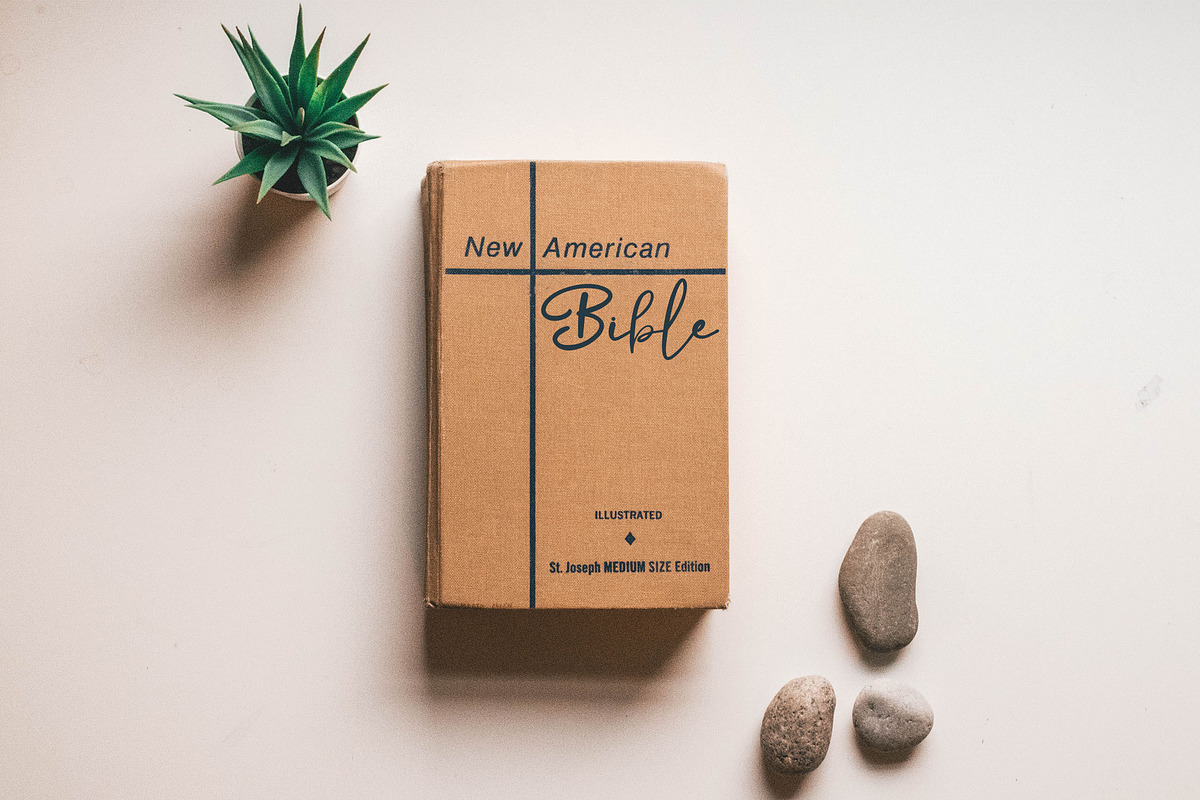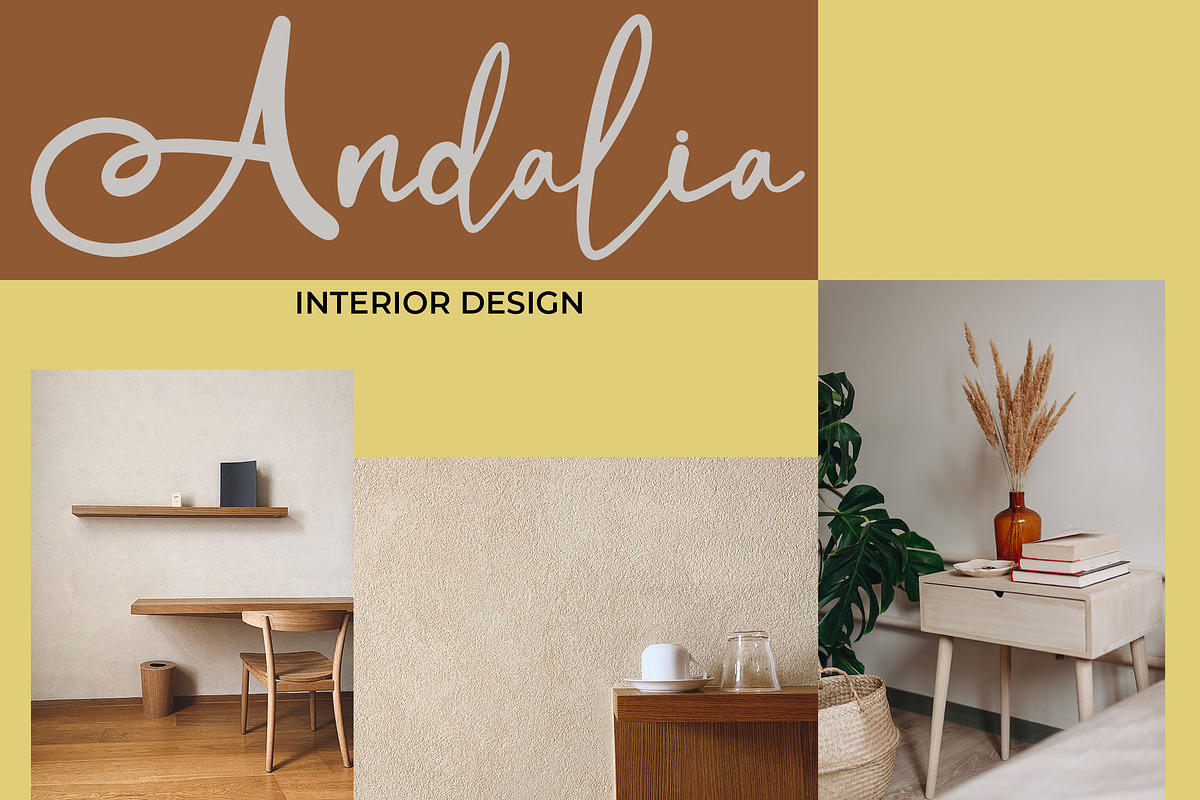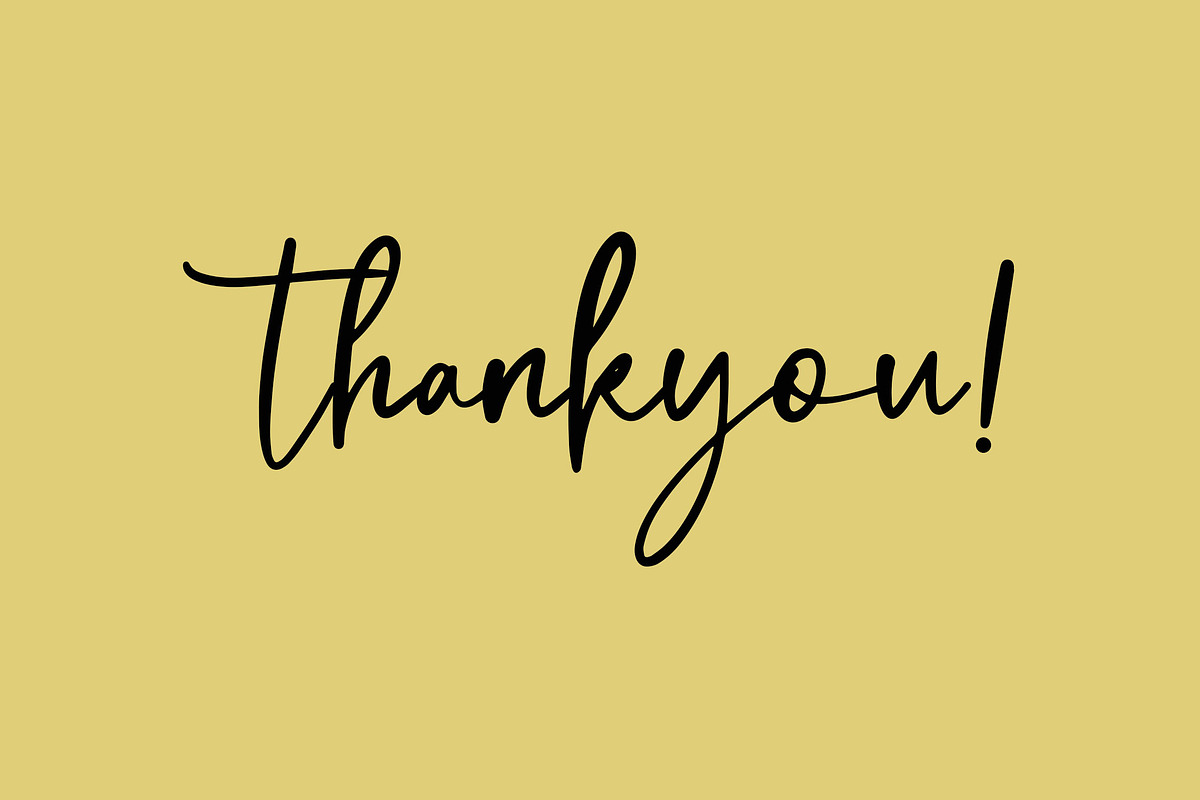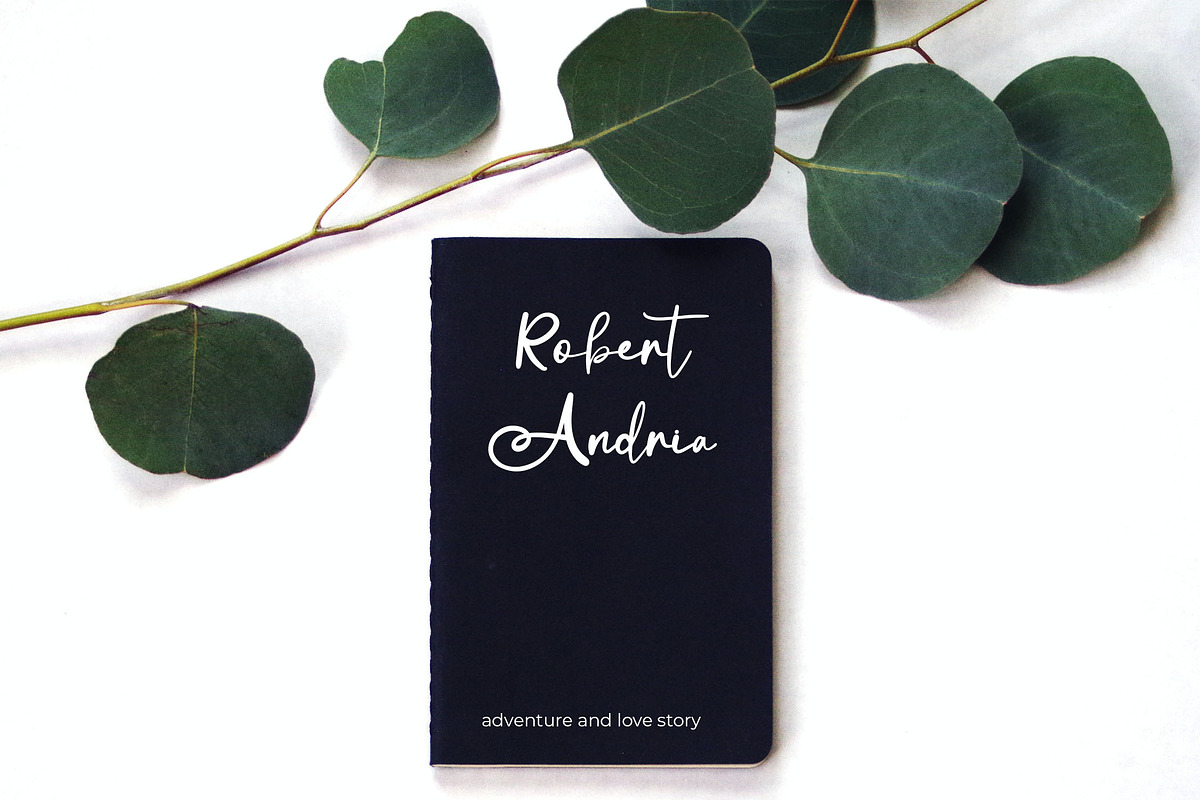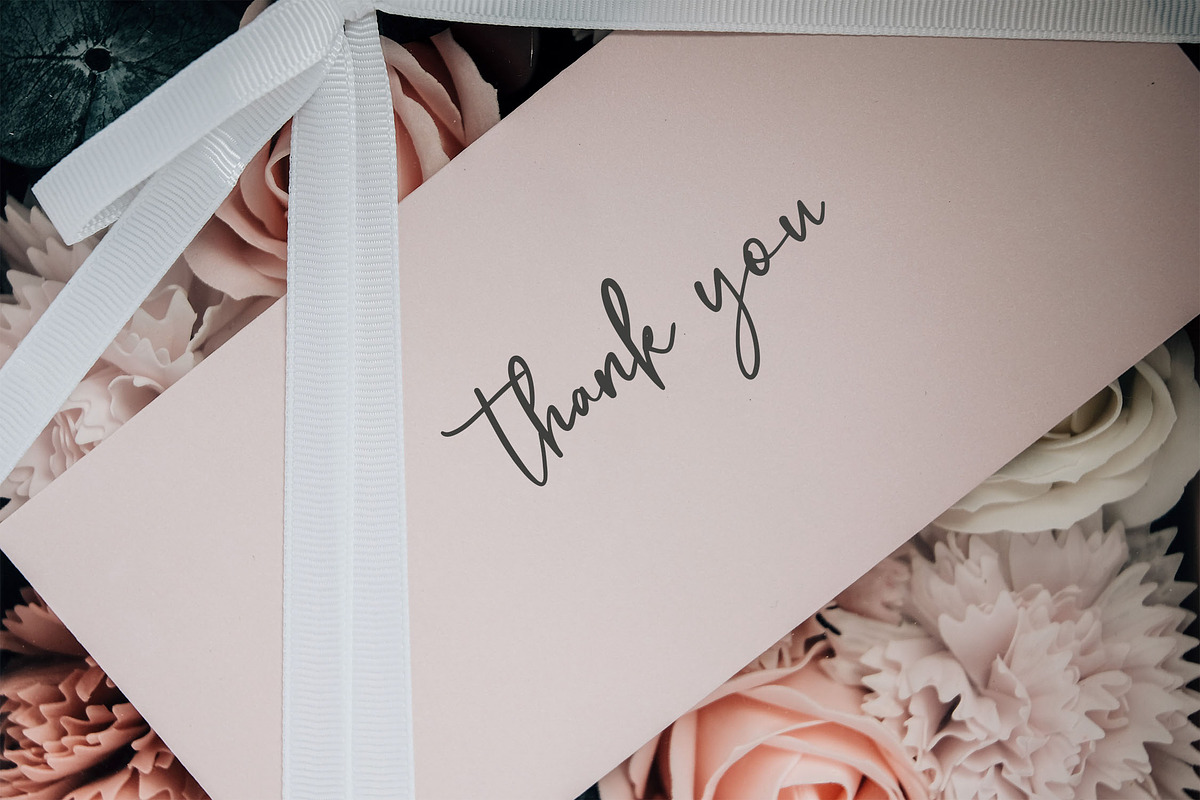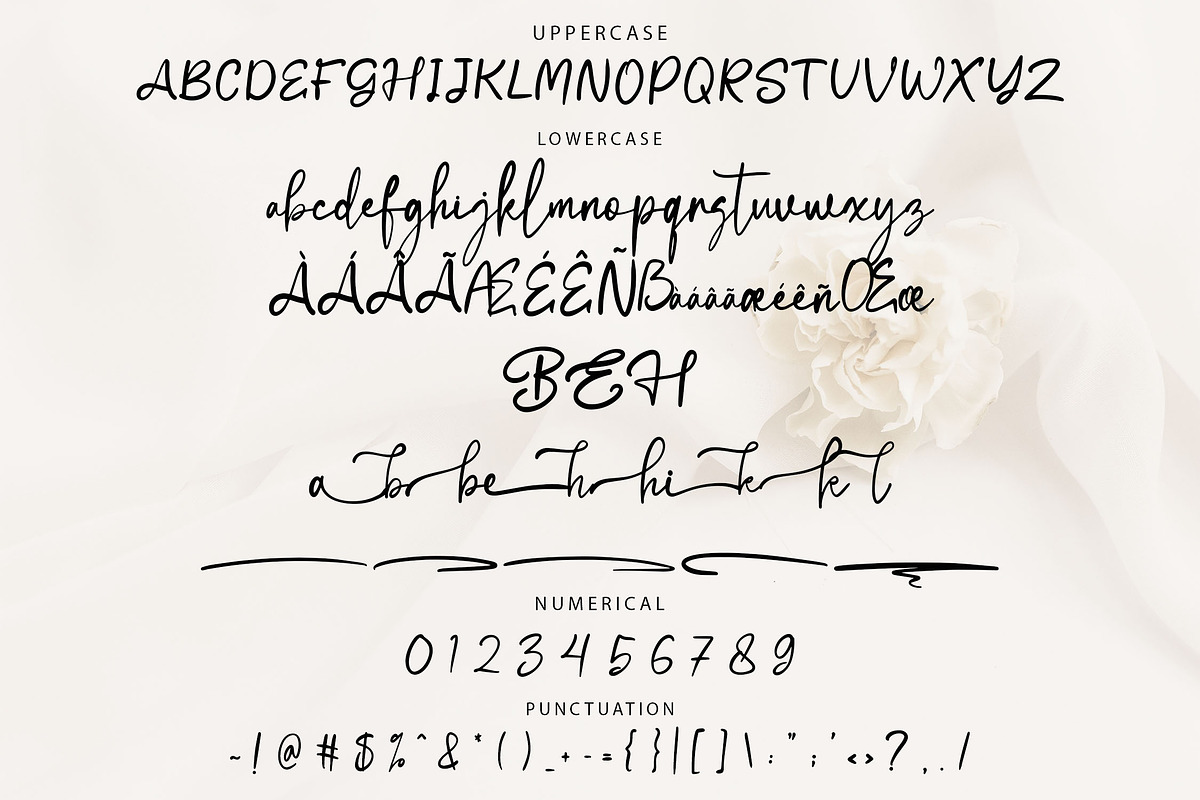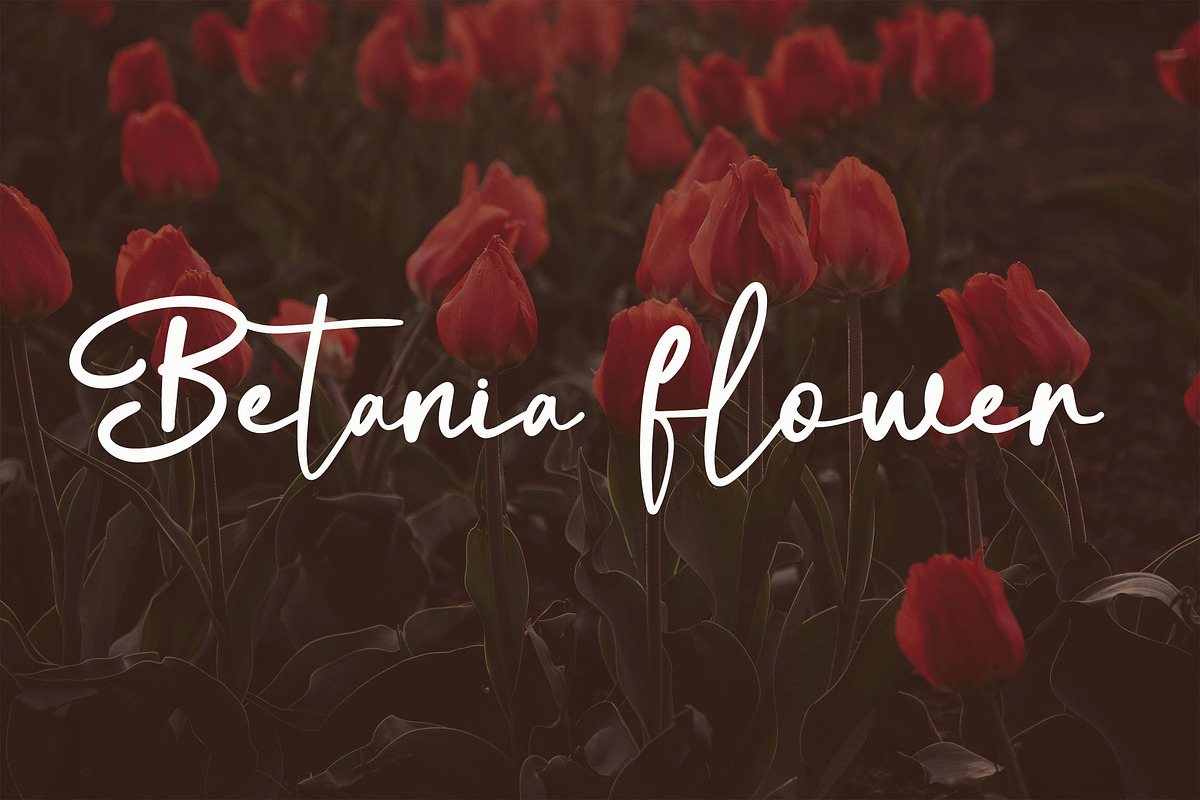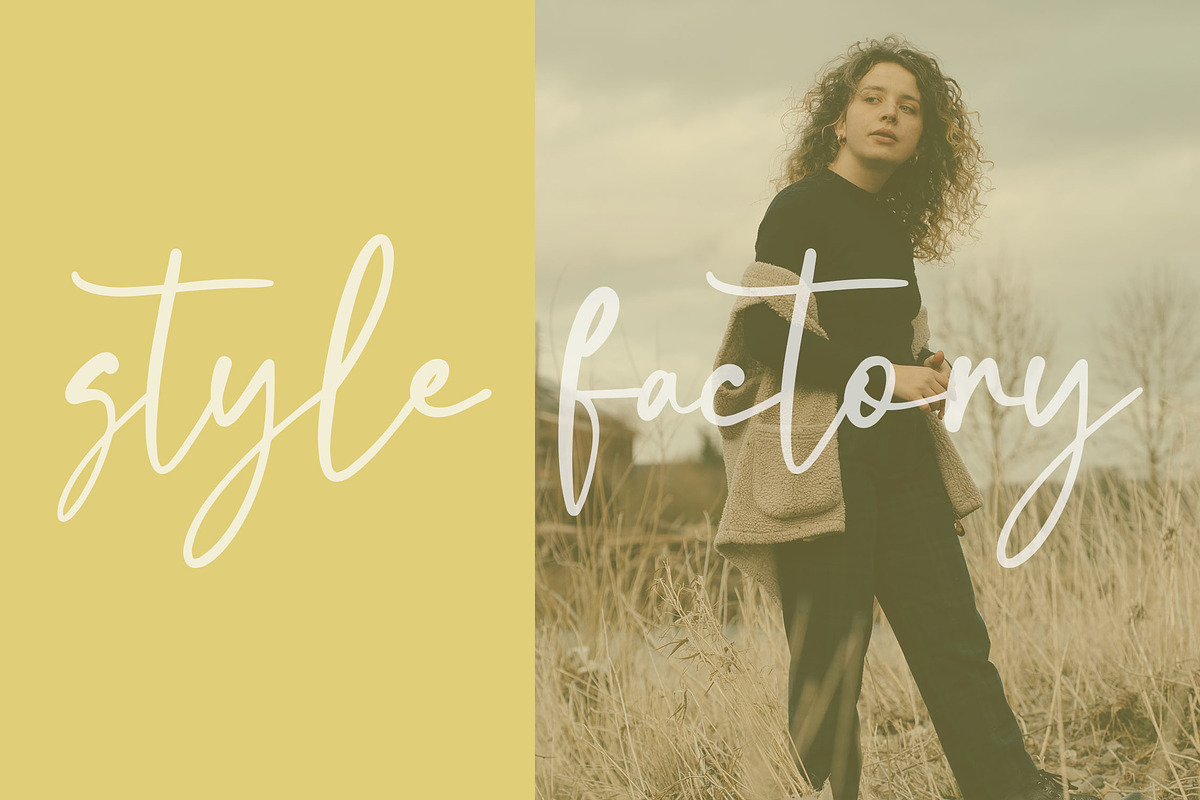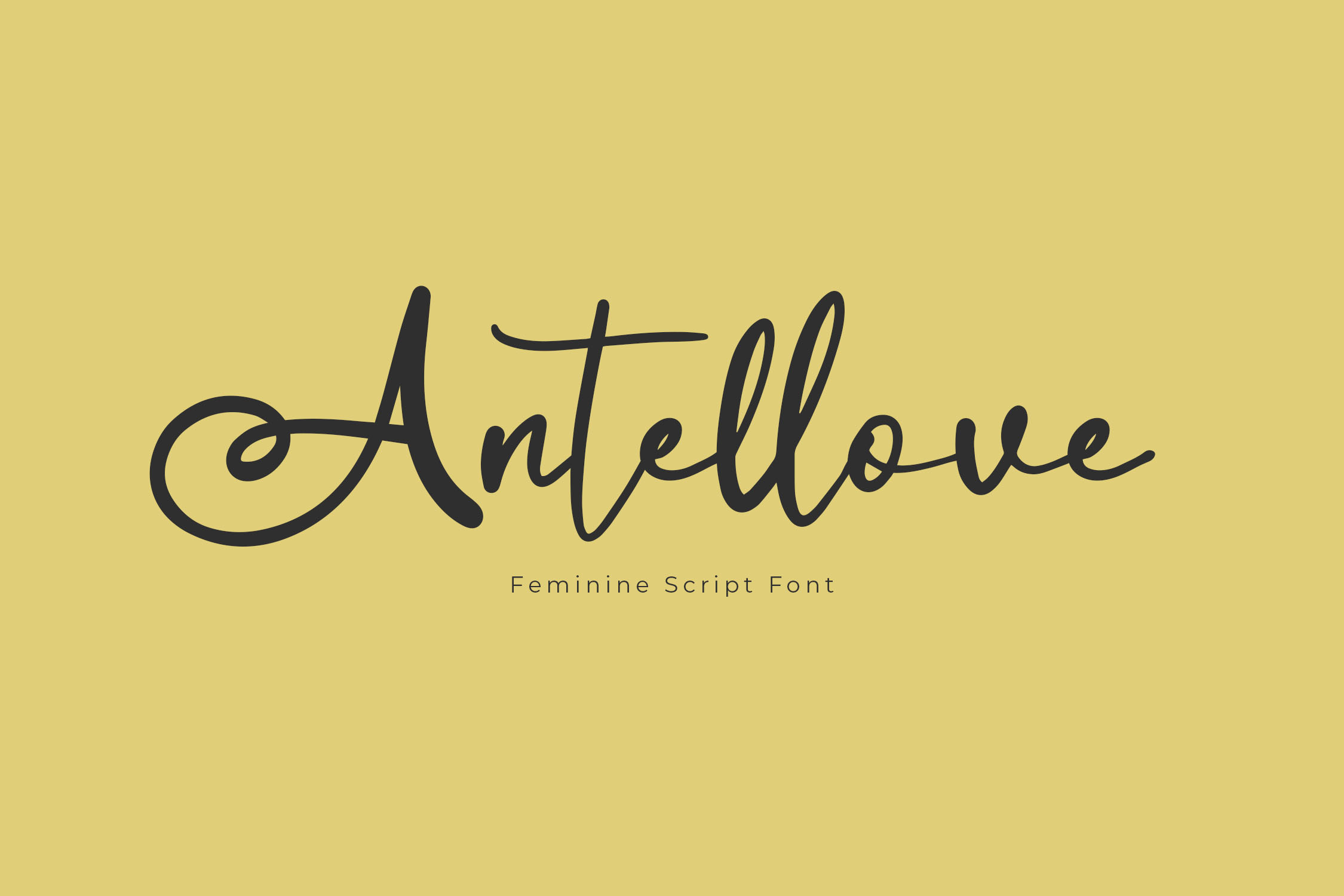
Antellove Feminine Script Font
Antellove Script Font
Introducing Antellove, a charming script font that embodies a feminine style. Designed with unique and beautifully crafted characters, Antellove enhances the visual appeal of any project, making it perfect for adding a touch of elegance to your designs.
- Stylish Ligatures for smooth letter connections
- Stylistic Alternates for added design flexibility
- Decorative Swashes to enhance your text
- Multilingual Support for diverse language applications
Elevate your typography with Antellove and transform your designs into something special!